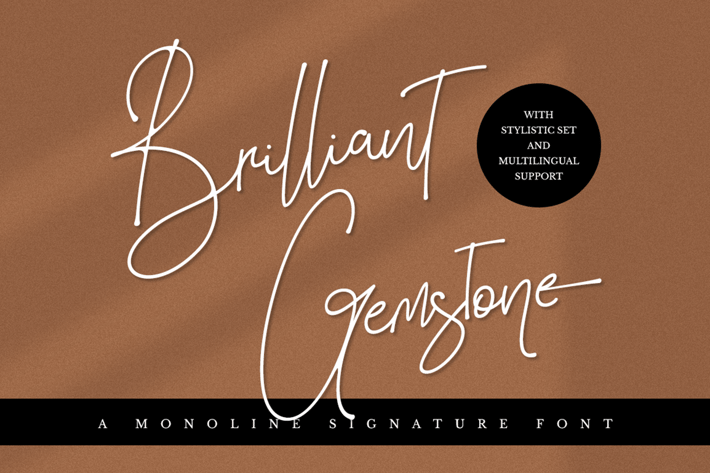
Brilliant Gemstone - Signature Font
Brilliant Gemstone is a modern signature font which is combining classic calligraphy with a modern style. Its dancing baseline will give your design an elegant and modern touch.